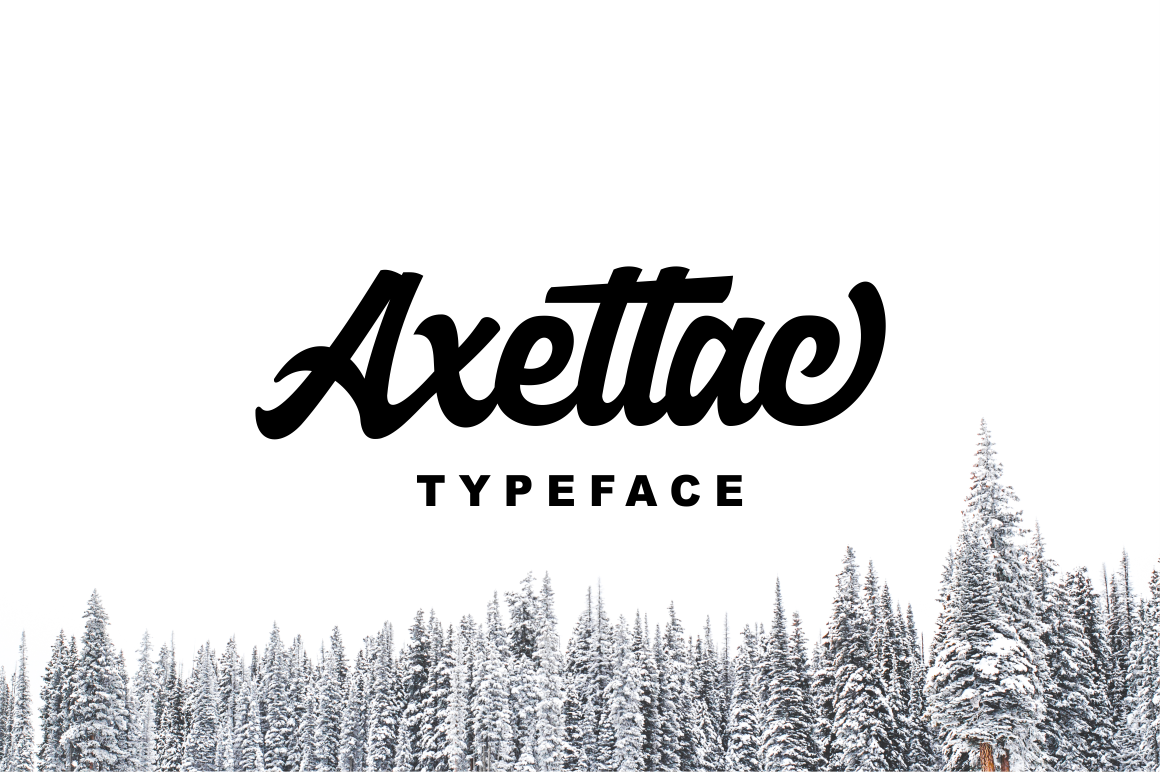
The Bold and Beautiful Axettac Font: A Designer’s Dream
I’ll never forget the time I was working on a branding project for a fashion label, and I just couldn’t find the right font to capture the essence of the brand. The client wanted something bold, daring, and eye-catching, but also elegant and sophisticated. That’s when I stumbled upon the Axettac font, and it was love at first sight! 💕
Axettac is a stunning script font that has become a go-to in my design toolkit. Its bold and daring personality makes it perfect for logotypes, apparel, posters, and much more. In this article, I’ll share my honest review of Axettac, a practical guide on how to use it, and some valuable insights into its features and alternatives.
Honest Review: What I Love and What I Don’t
- 💥 **Bold and daring personality**: Axettac makes a statement and grabs attention.
- 🌎 **Multilingual support**: It supports a wide range of languages, making it perfect for global brands.
- 🎨 **Extra swashes**: The font comes with additional swashes, allowing for endless creative possibilities.
- ✅ **High-quality design**: The font is well-crafted, with beautiful lines and curves.
- ⚠️ **Limited use in body text**: Axettac is best used for headlines and titles, as it can be overwhelming for longer texts.
- 🤔 **Some swashes may not work well in all contexts**: A few swashes might not fit perfectly in certain design scenarios.
The Story Behind Axettac
Axettac was designed by a talented type designer who’s passionate about creating unique and beautiful fonts. The designer’s inspiration came from a mix of traditional calligraphy and modern digital design. The result is a font that’s both elegant and bold, perfect for making a statement in any design project.
| Font Name | Axettac Font |
| Author | Subqi Std |
Q: What is the Axettac font best used for?
A: Axettac is best used for logotypes, apparel, posters, and other design projects that require a bold and daring personality.
Q: Is Axettac a multilingual font?
A: Yes, Axettac supports a wide range of languages, making it perfect for global brands and multilingual designs.
Q: Can I use Axettac for body text?
A: While Axettac is a beautiful font, it’s best used for headlines and titles. It can be overwhelming for longer texts, so it’s recommended to use it sparingly.